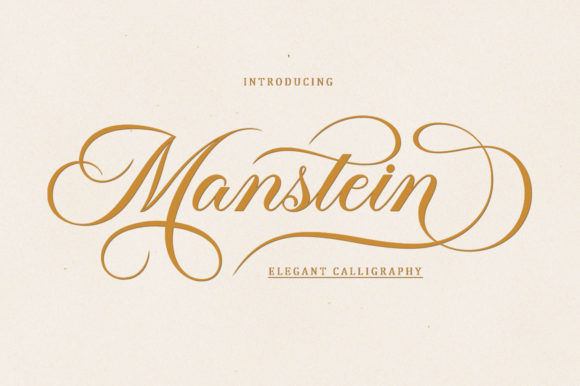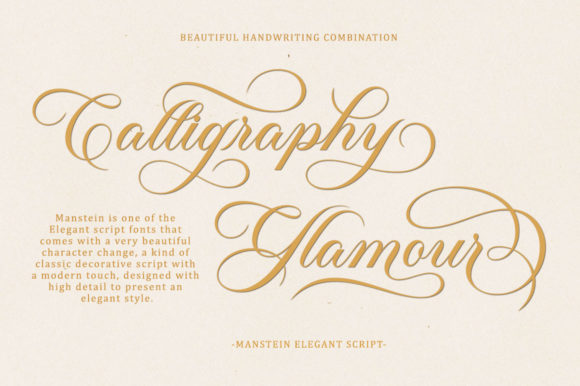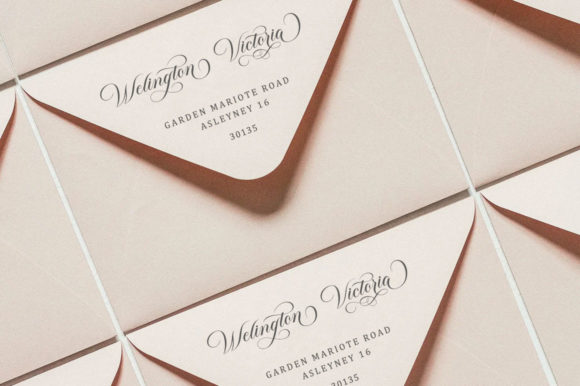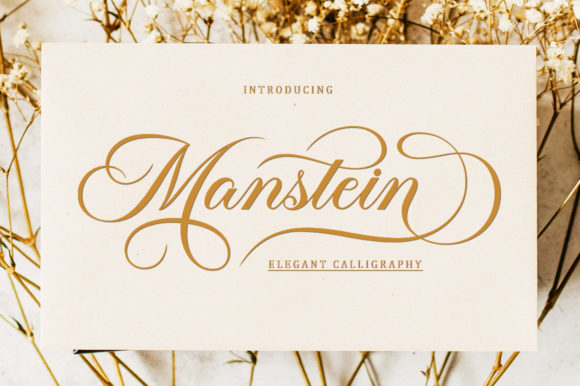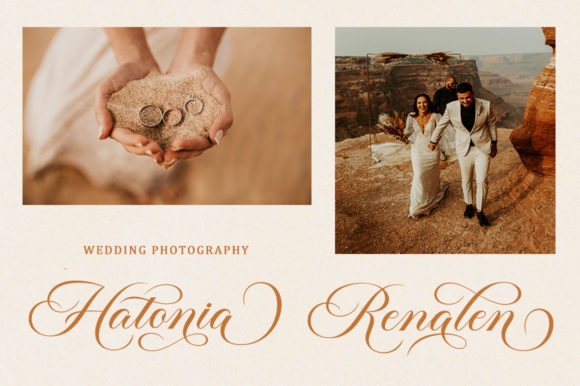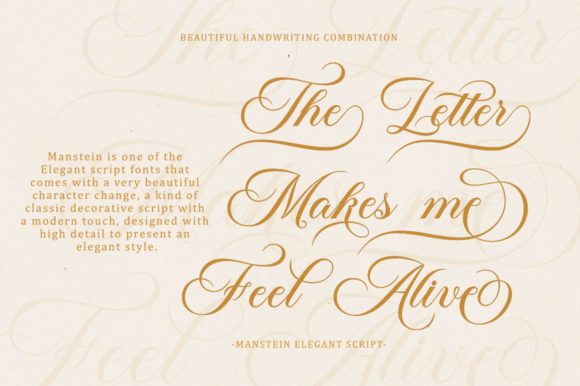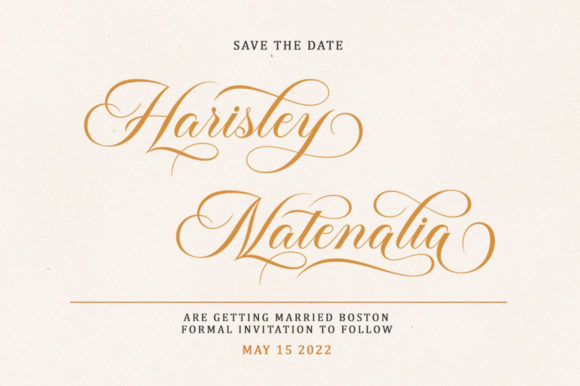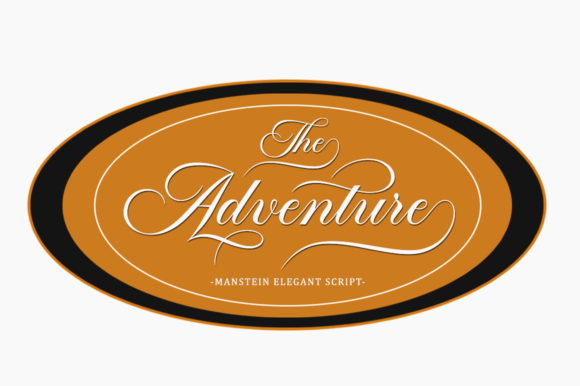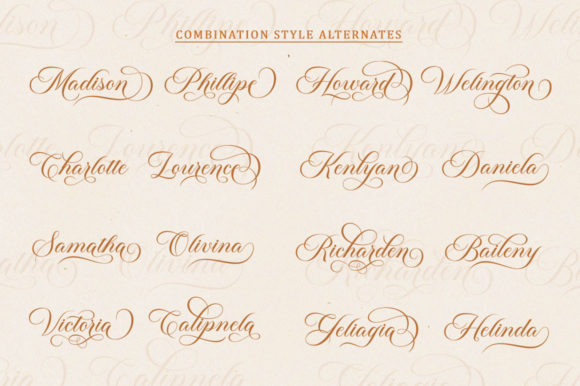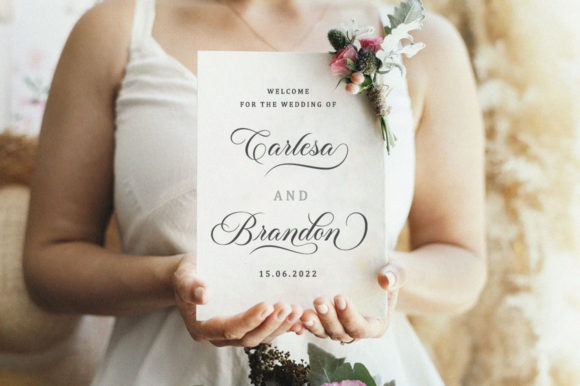
Manstein Font
About Manstein Font
Manstein is a stylish and slim script font designed to bring a touch of sophistication to your projects. With its slender and elegant design, this font is versatile and well-suited for a variety of applications, including product packaging, branding projects, magazine covers, social media, weddings, and more. The slim and stylish characteristics of Manstein make it an excellent choice for conveying a sense of modernity and refinement in your designs.
In product packaging, Manstein adds a stylish and contemporary flair. The slim script font can enhance the overall aesthetic of the packaging, creating a sophisticated and eye-catching look that resonates with modern consumers.
For branding projects, Manstein’s stylish and slim design contributes to a sleek and elegant visual identity. The font can be used to create logos, headlines, or other branding elements that convey a sense of professionalism and sophistication.
In magazine covers and social media graphics, Manstein’s slim script style stands out, providing a modern and visually appealing typography choice. Whether used for headlines, captions, or quotes, the font adds a touch of style to your visual content.
For wedding-related designs, Manstein’s slim and elegant script can be applied to invitations, stationery, or other elements, adding a refined and sophisticated touch to the romantic atmosphere.
Whether expressing words against a background or creating a modern and stylish look for various projects, Manstein’s slim script font offers a versatile and visually pleasing option.
In summary, Manstein is more than just a font; it’s a stylish and slim script font that enhances the visual appeal of your projects. Whether applied to product packaging, branding, magazine covers, social media, weddings, or other design contexts, Manstein brings a touch of sophistication and modernity to your typography.